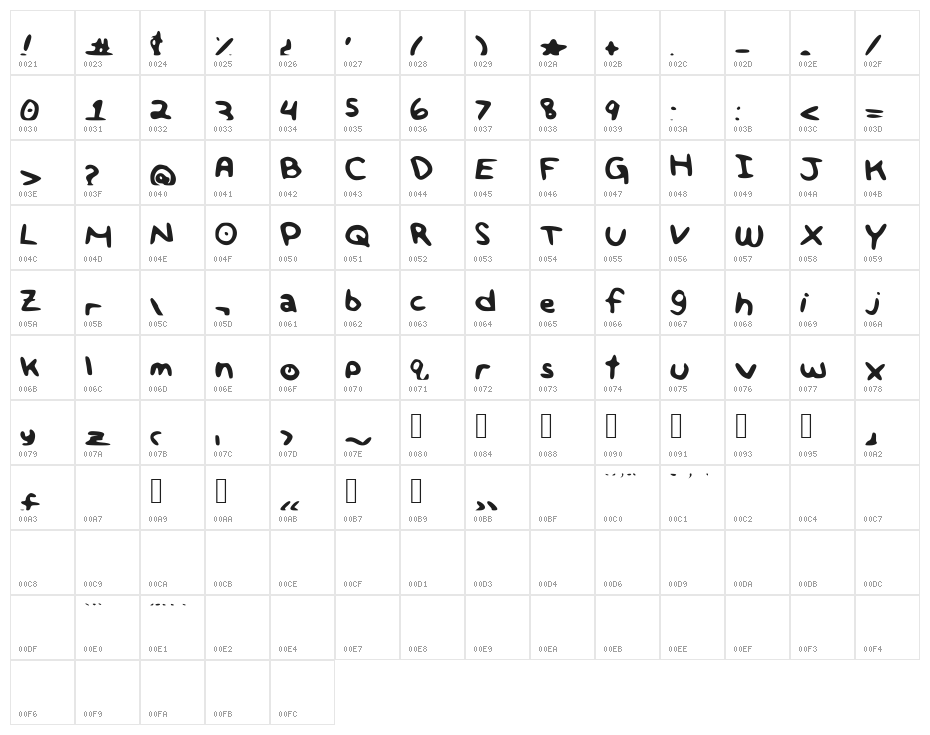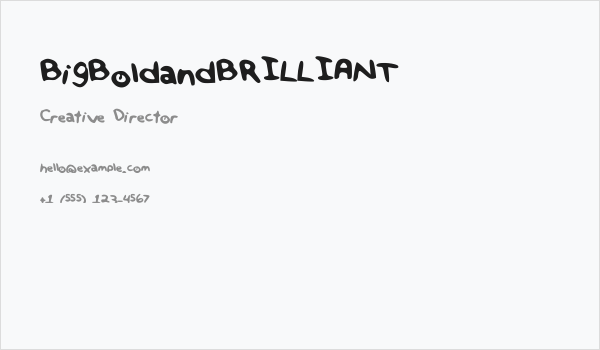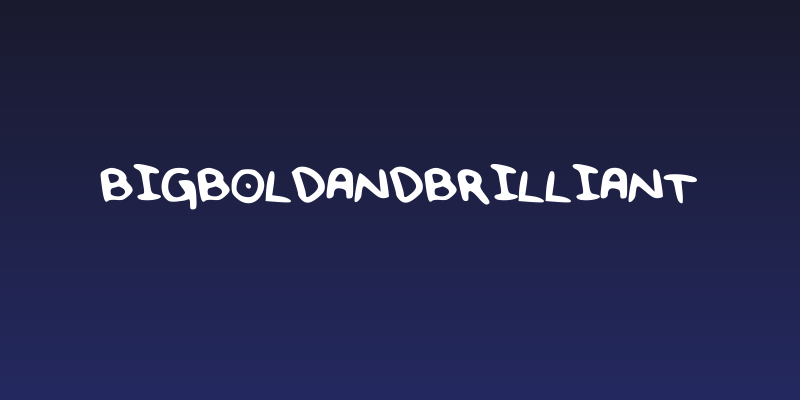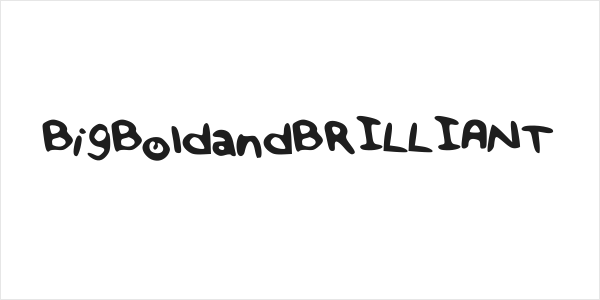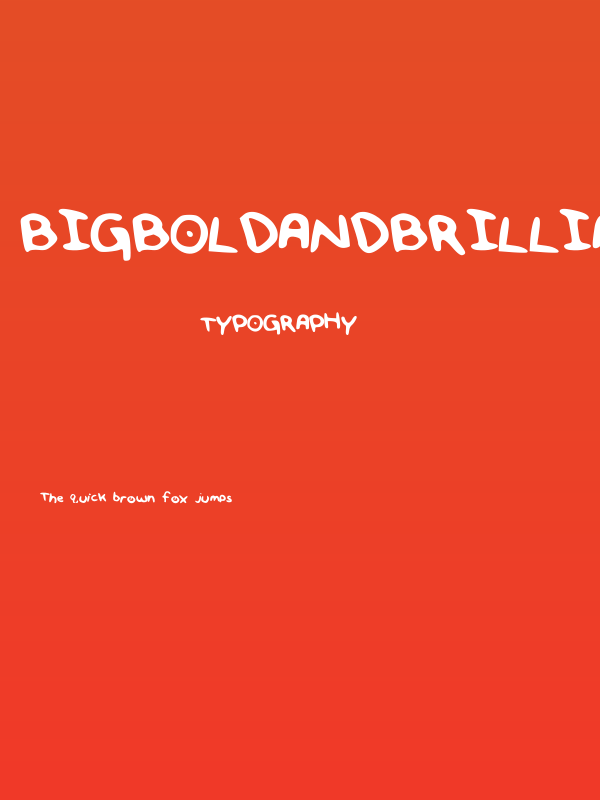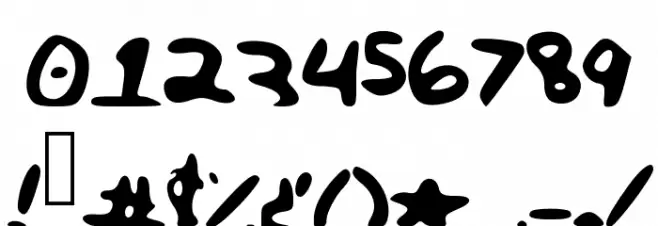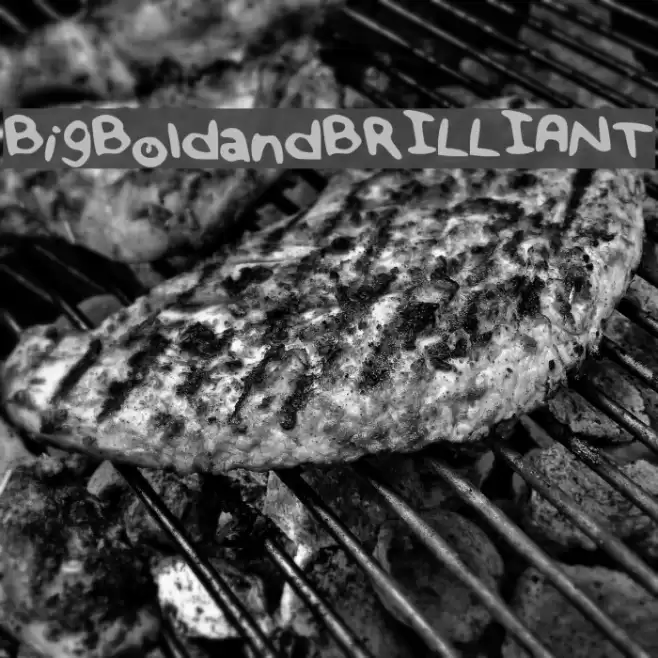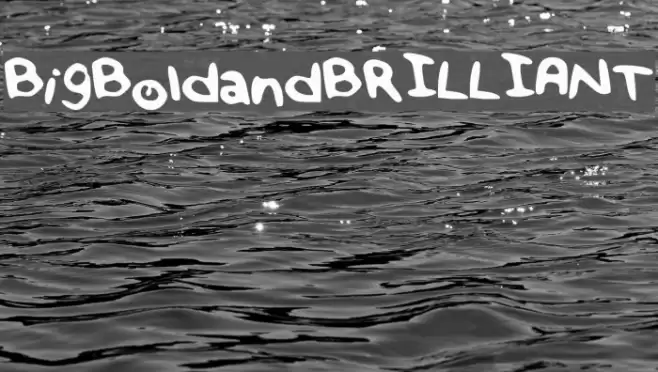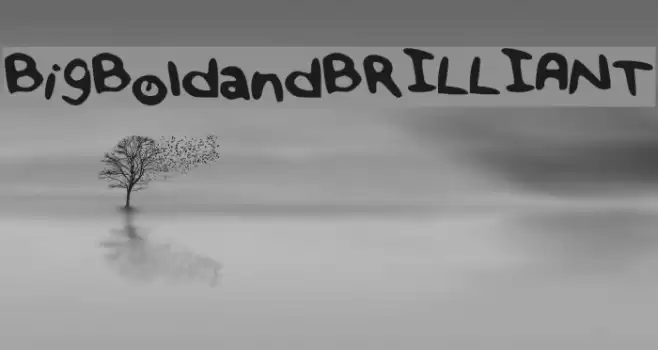
BigBoldandBRILLIANT Font
This font features a bold and playful style with a handwritten appearance. The letters are rounded and slightly irregular, giving it a casual and friendly look. The uppercase and lowercase characters maintain a consistent weight, contributing to its boldness. The numbers and special characters follow the same playful design, making the font versatile for creative projects. Its thick strokes and rounded edges make it highly legible, even at smaller sizes. The overall style is informal and energetic, perfect for projects that require a fun and approachable aesthetic.
| Overall Style | Playful, Casual |
| Proposed Projects | Ideal for children's books, playful branding, casual invitations, and social media graphics. |